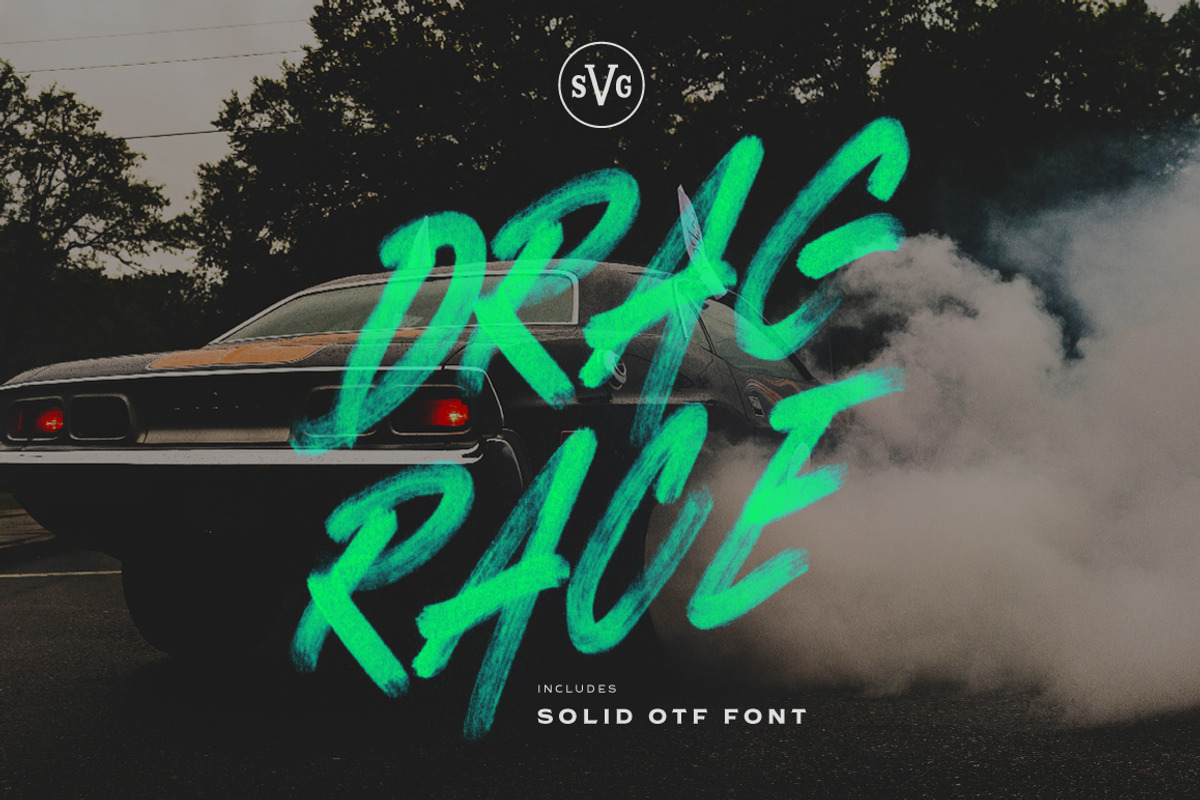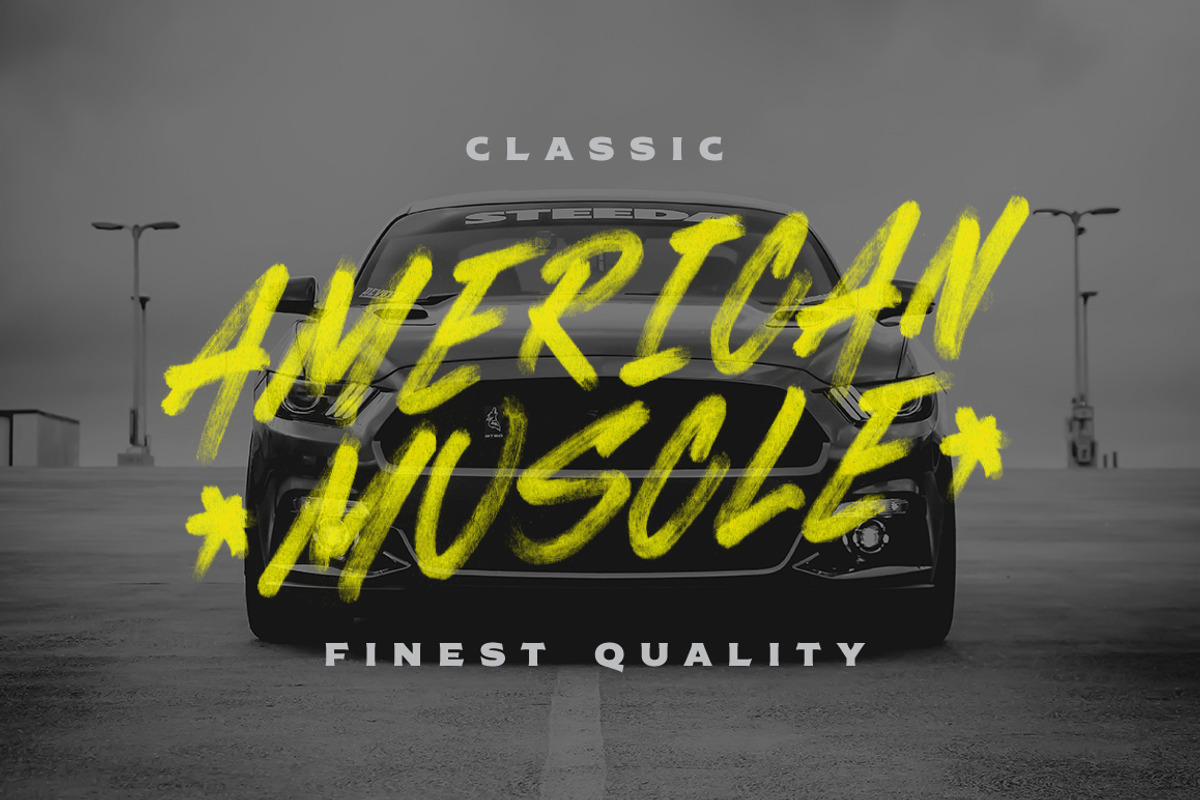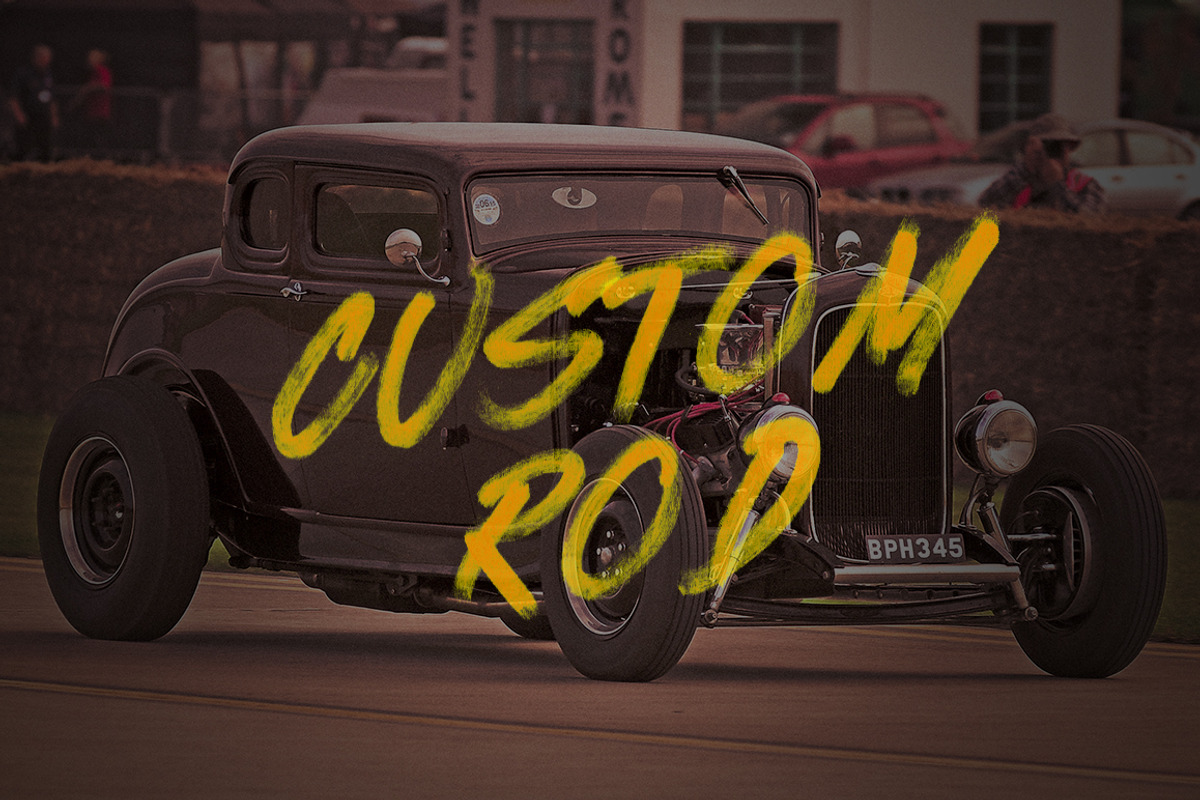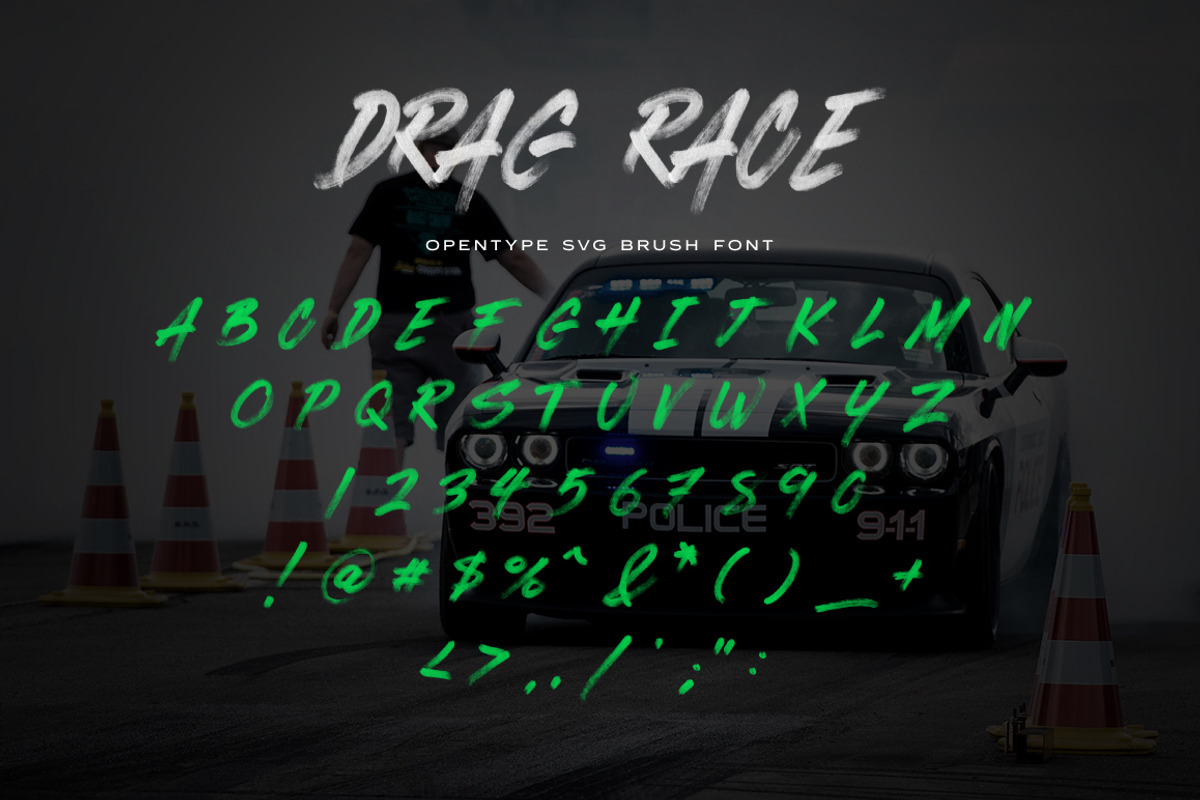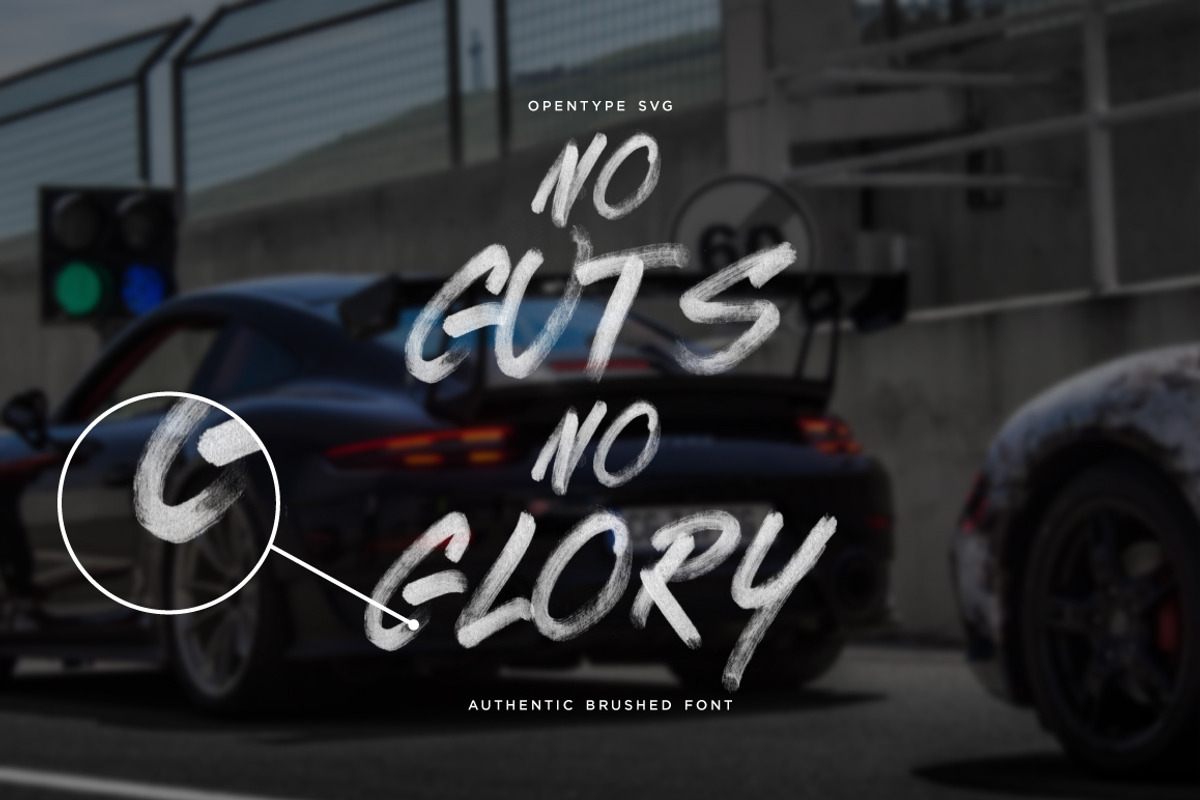
Drag Race - SVG Marker Font
Drag Race SVG is a new hand drawn SVG marker font. This aggressive, italic hand drawn font is perfect for use in action sports, athletics, automotive related projects.
It features an attractive transparency maintained through the special process of creating and SVG font, but also includes a standard vector version.